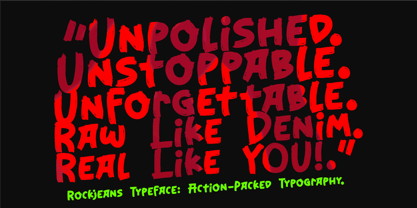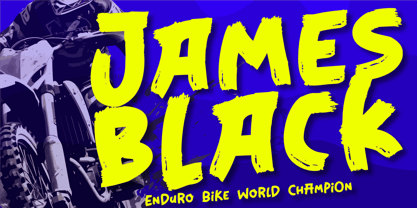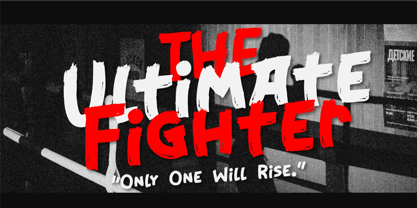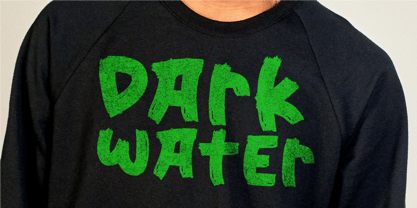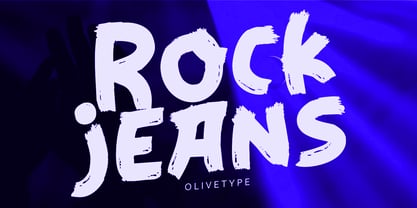
Rockjeans
by Olivetype
The Rockjeans Font Family was designed by Aldy Sidik, Nurul Hidayani and published by Olivetype. Rockjeans contains 1 styles.
RockJeans is a bold and gritty brush typeface built for impact. Hand-drawn with wild strokes and textured flair, this font screams attitude, making it the perfect choice for gaming graphics, movie posters, event titles, band logos, and urban-themed branding. Whether you're designing a high-energy game interface, a rebellious t-shirt, or an explosive action movie title, RockJeans brings the raw edge your visuals need.
With rough textures, natural ink flow, and a rebellious spirit, RockJeans blends the feel of distressed denim and rock 'n roll energy into every letter. It's loud. It's fierce. It's unforgettable.
Designers: Aldy Sidik, Nurul Hidayani
Publisher: Olivetype
Foundry: Olivetype
Design Owner: Olivetype